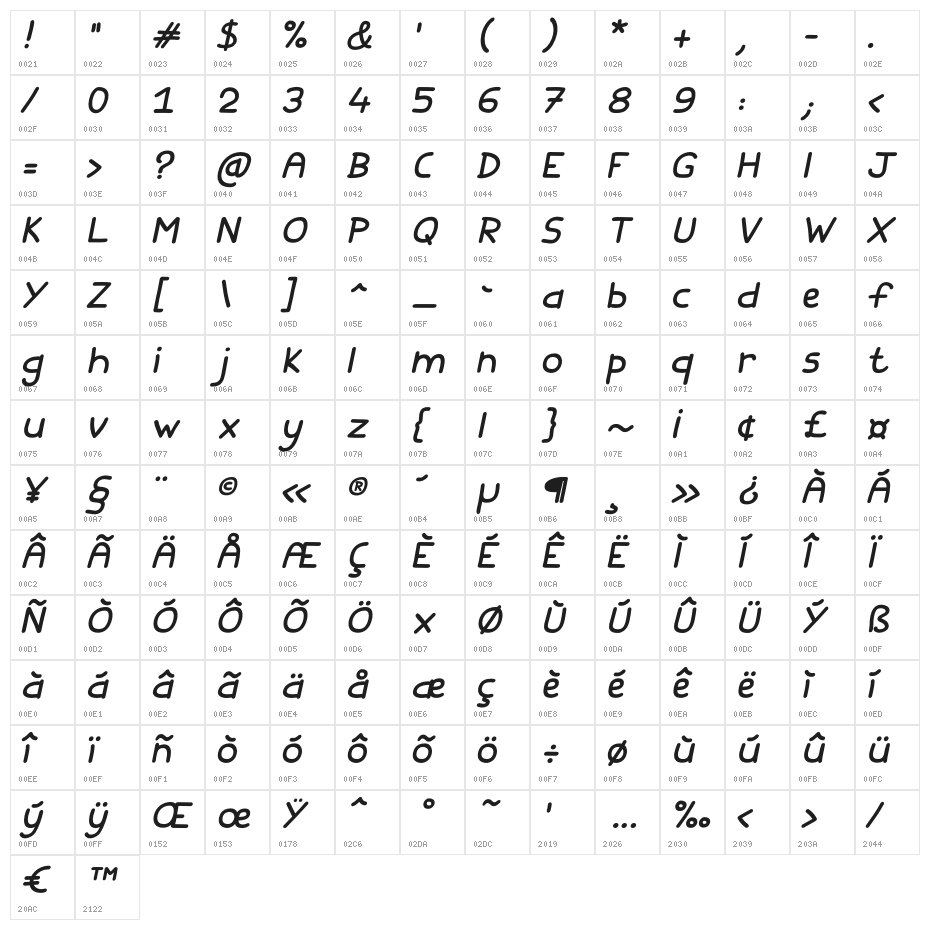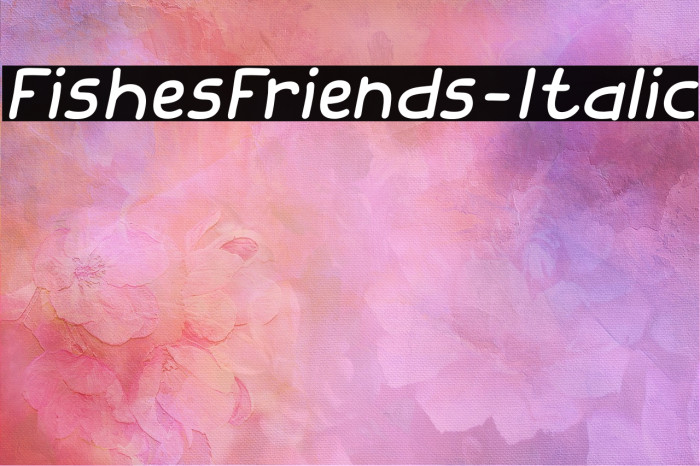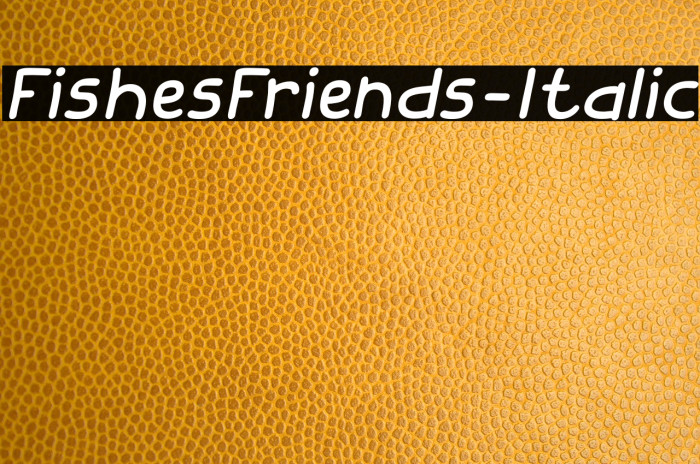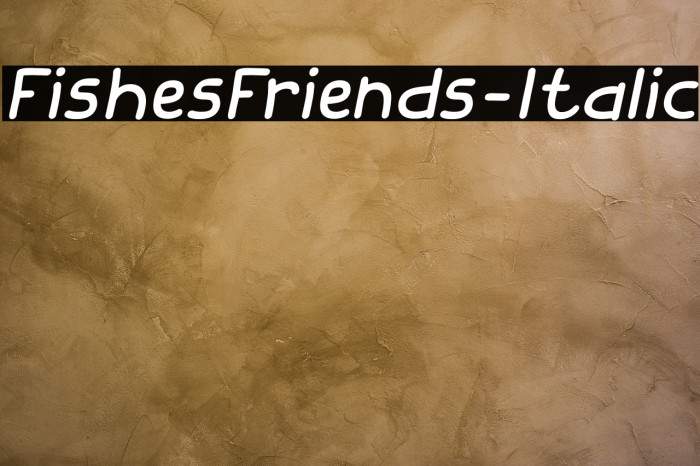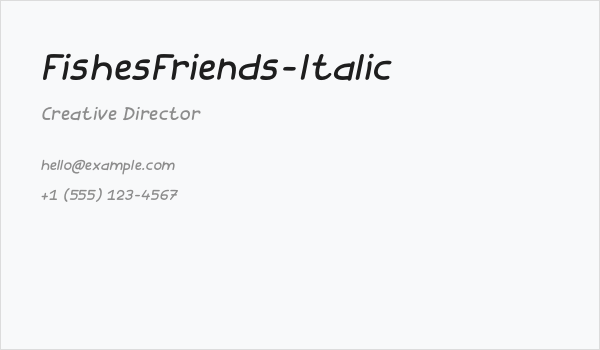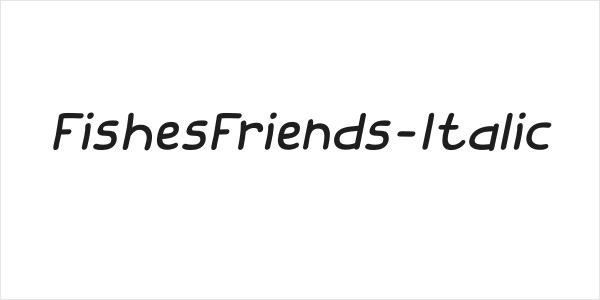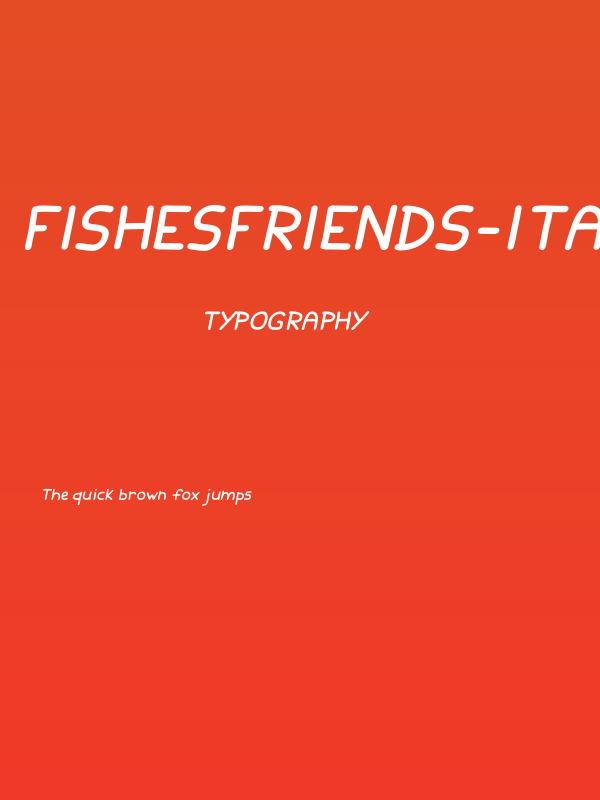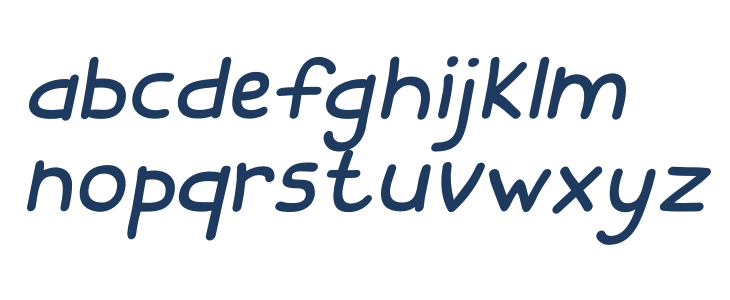
FishesFriends-Italic Font
FishesFriends-Italic Description
This playful and friendly font features a smooth, rounded style with a casual, handwritten feel. The letters are slightly slanted, giving it an italic appearance that adds a sense of motion and fluidity. The strokes are consistent in thickness, providing a uniform look across all characters. The font includes both uppercase and lowercase letters, numbers, and a variety of special characters, making it versatile for different design needs. Its approachable and informal style makes it suitable for projects that require a personal touch.
| Proposed Projects | Ideal for children's books, greeting cards, playful branding, and informal invitations. |